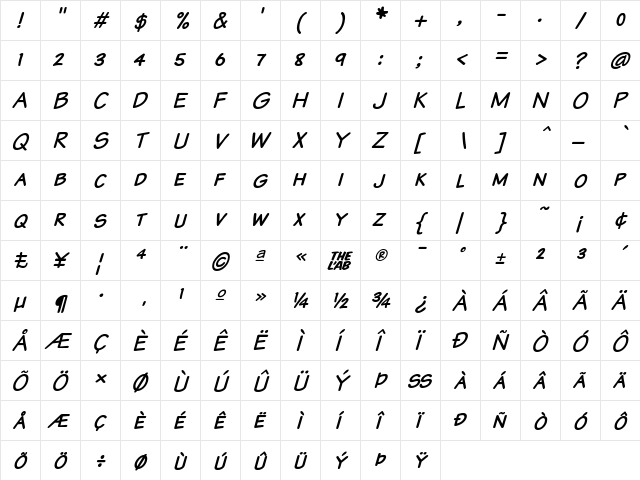
Komika Text Kaps Italic
Design Context for Komika Text Kaps Typeface
Komika Text Kaps is a composed and adaptable typeface that performs quietly and consistently across a wide range of design contexts. The dynamic lean of this cut emphasises speed and emphasis in any layout.
Pro Tip: Use Komika Text Kaps for emphasis, pull quotes, and subheadings where its slanted energy can add rhythm to the layout.